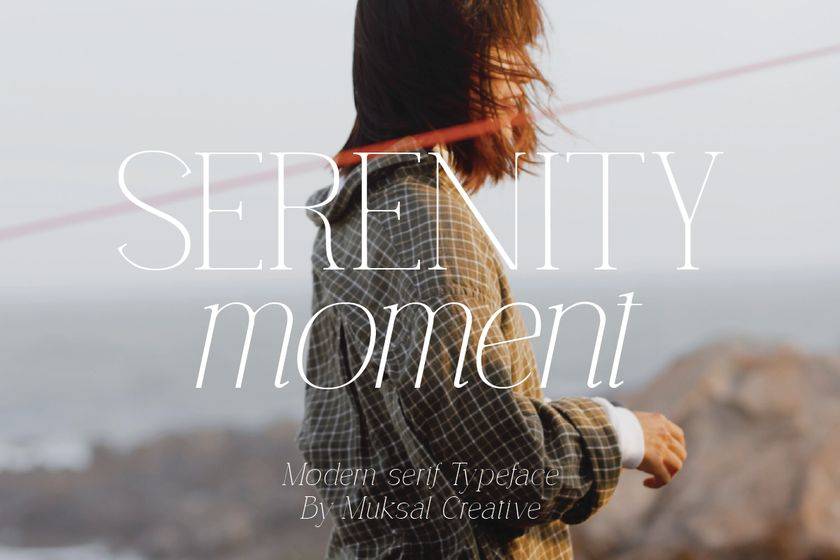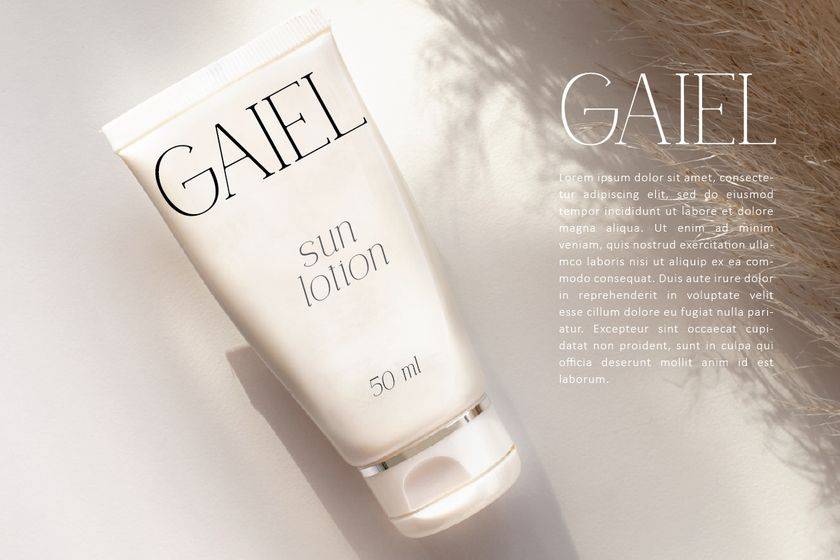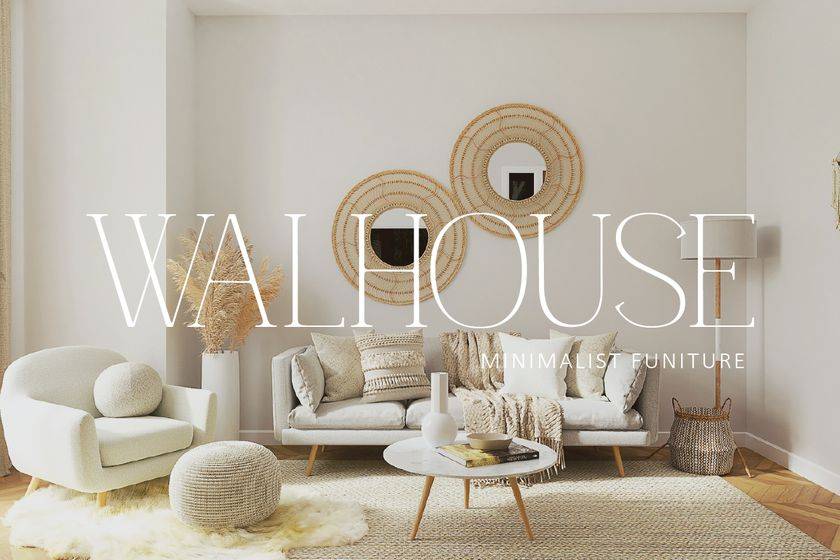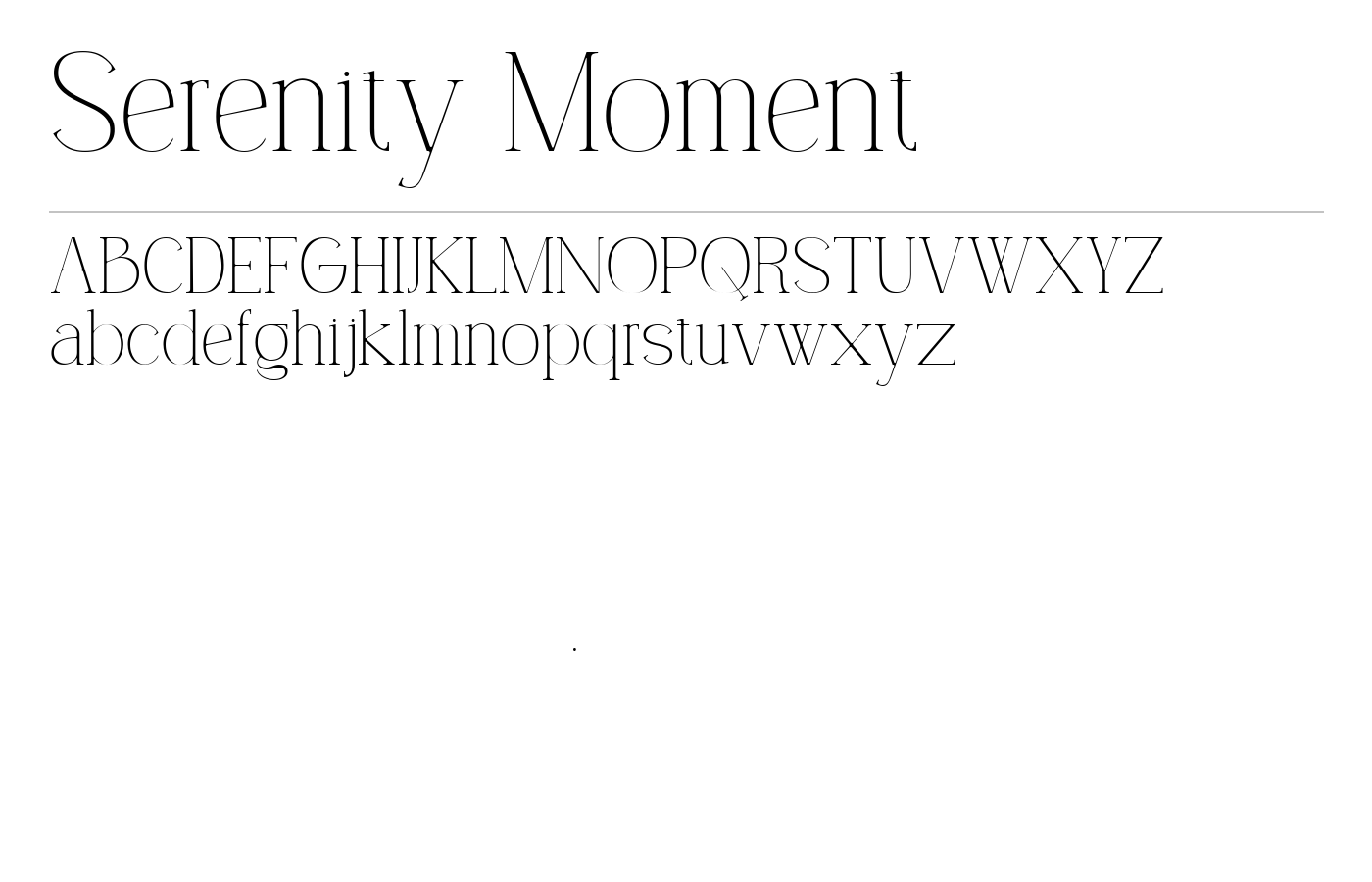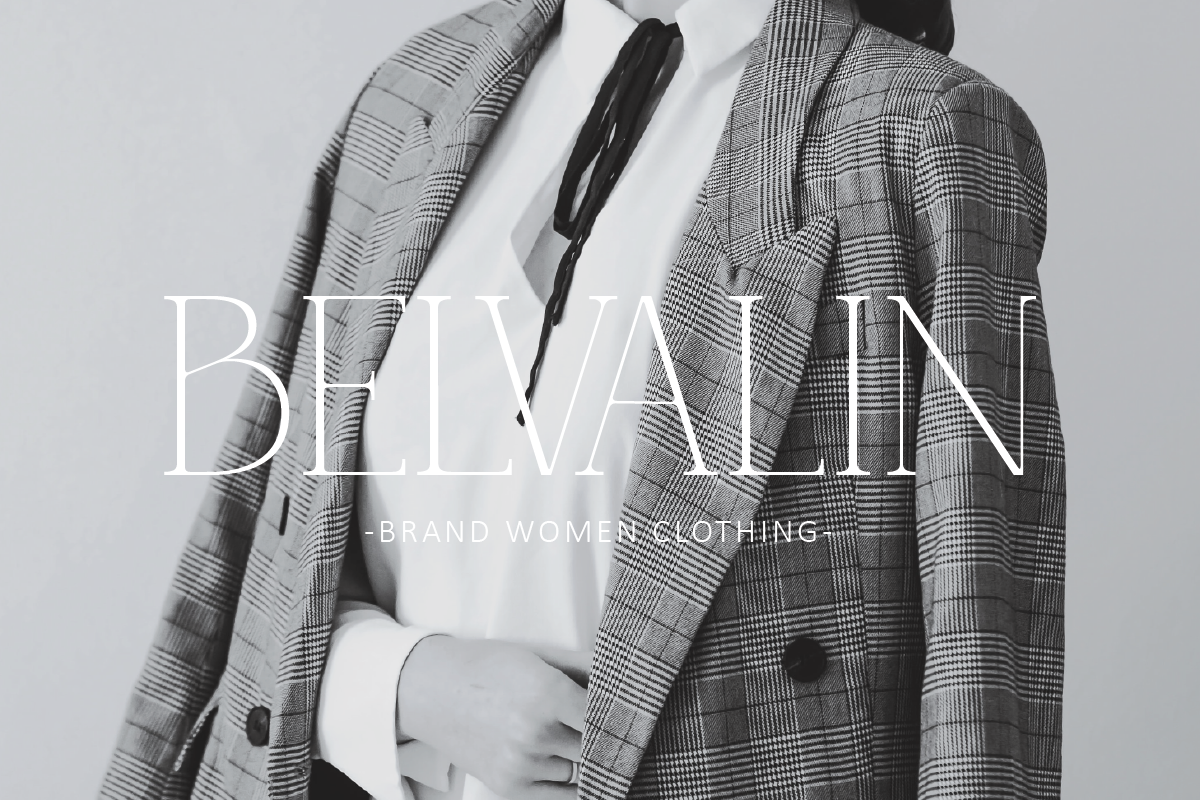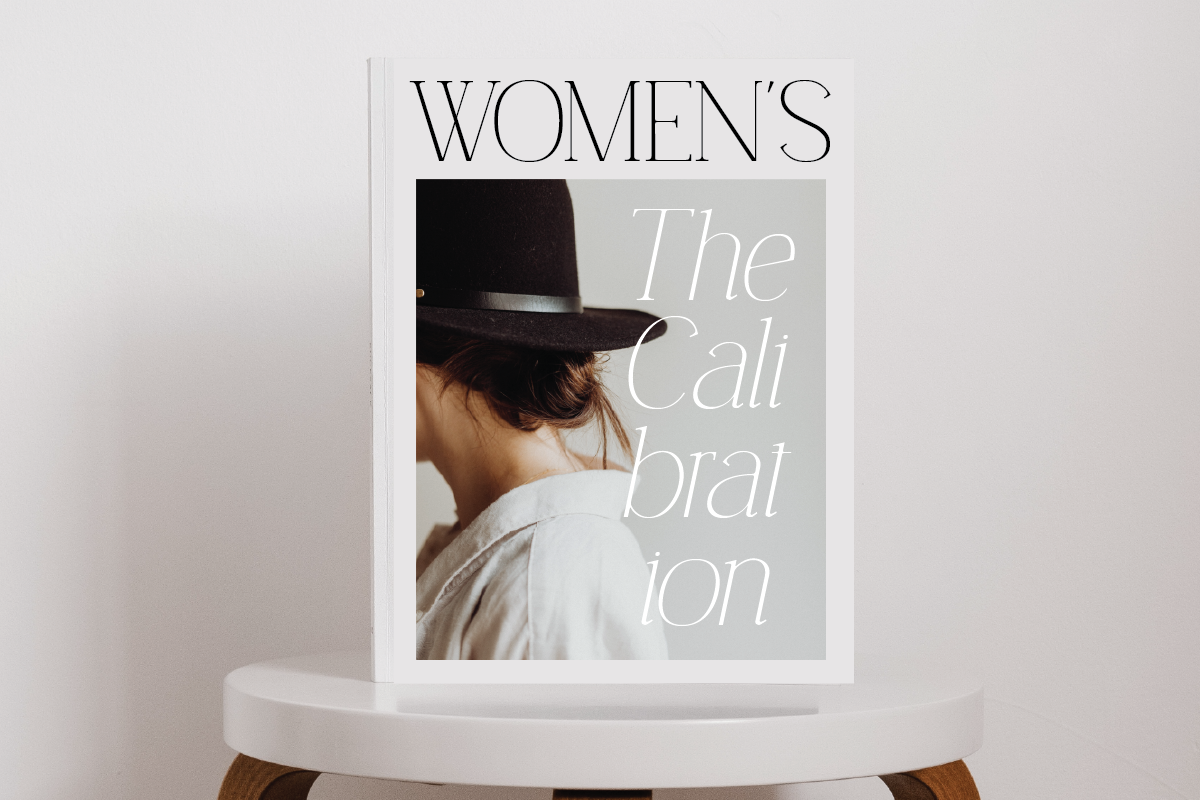
Serenity Moment is a delicate serif font characterized by its thin strokes, high contrast between thick and thin lines, and elegant bracketed serifs that evoke a refined, sophisticated feel. Its tall x-height and slender letterforms make it perfect for luxury branding, editorial headlines, and upscale packaging, where a graceful and modern yet timeless aesthetic is desired. This font shines in designs that aim to communicate elegance, calmness, and subtlety.
Serenity Moment
About Serenity Moment
| Font family | Serenity Moment |
| Designer | Muksal Creative |